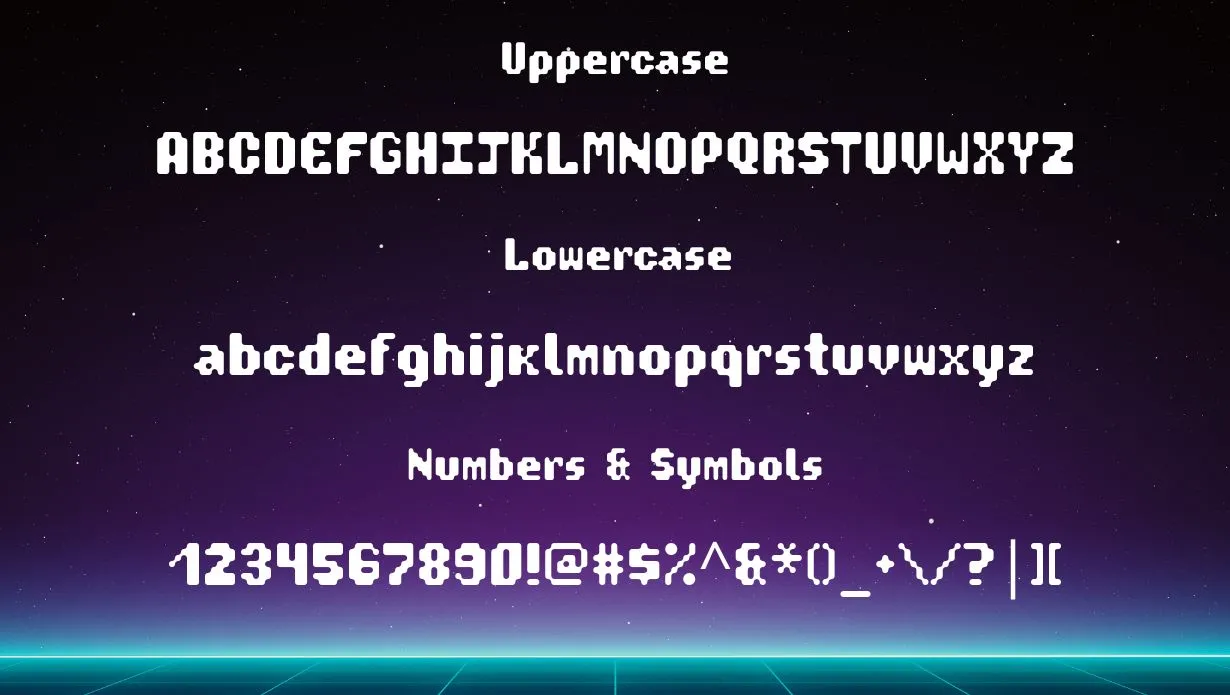
This font’s retro aesthetics are perfect for designs that need to evoke a sense of nostalgia or capture the essence of a bygone era, lending a timeless charm to any project.
| Name | Rixel Font |
| Designer | Emil Blum |
| Style | Sci-Fi |